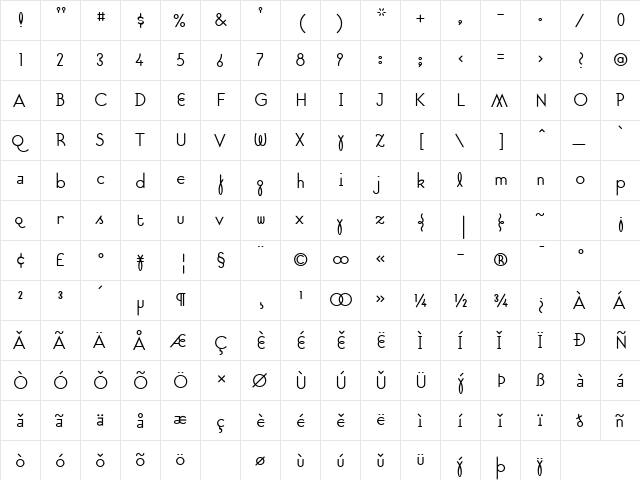
Suburban-Light Light
Design Context for Suburban-Light Typeface
Suburban-Light is a composed and adaptable typeface that performs quietly and consistently across a wide range of design contexts. Its slender proportions lend an understated elegance to any composition.